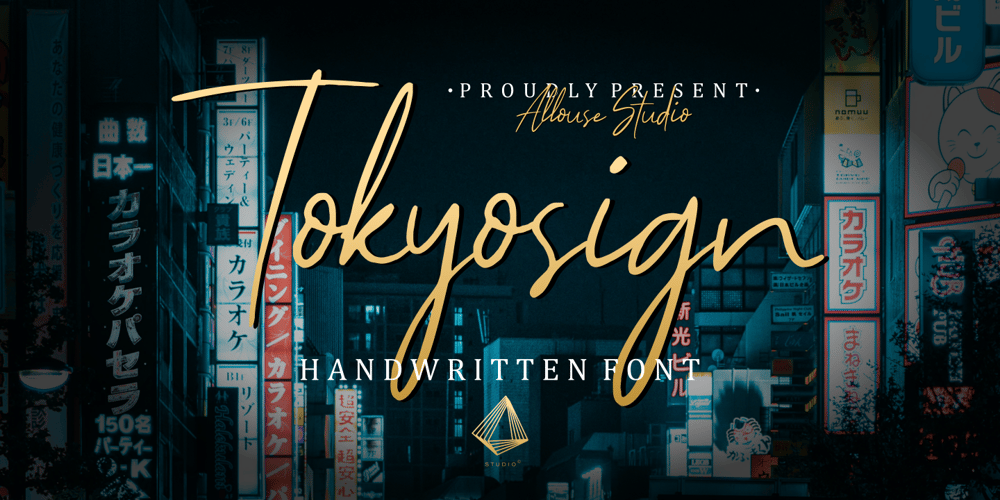
Tokyosign Font Family was designed by Fachrizal Yusuf and published by Allouse Studio. Tokyosign contains 1 styles and family package options. Tokyosign come with Multi-Lingual Support. Enjoy the font and feel the natural impression like the handwritten style itself!We highly recommend using a program that supports OpenType features and Glyphs panels like many of Adobe apps and Corel Draw, so you can see and access all Glyph variations.Tokyosign is perfect for any tittle, logo, stationery, product packaging, branding project, megazine, social media, wedding, or just used to express words above the background.Enjoy the font, feel free to comment or feedback, send me PM or email. Thank You!